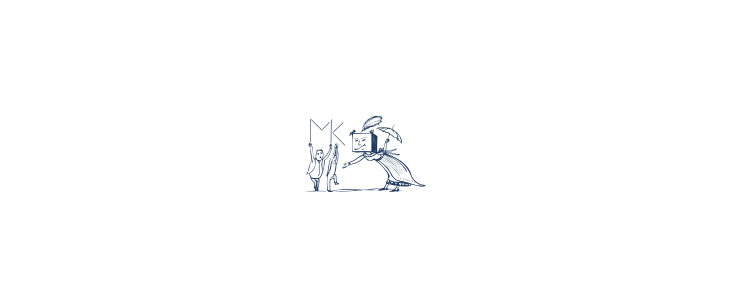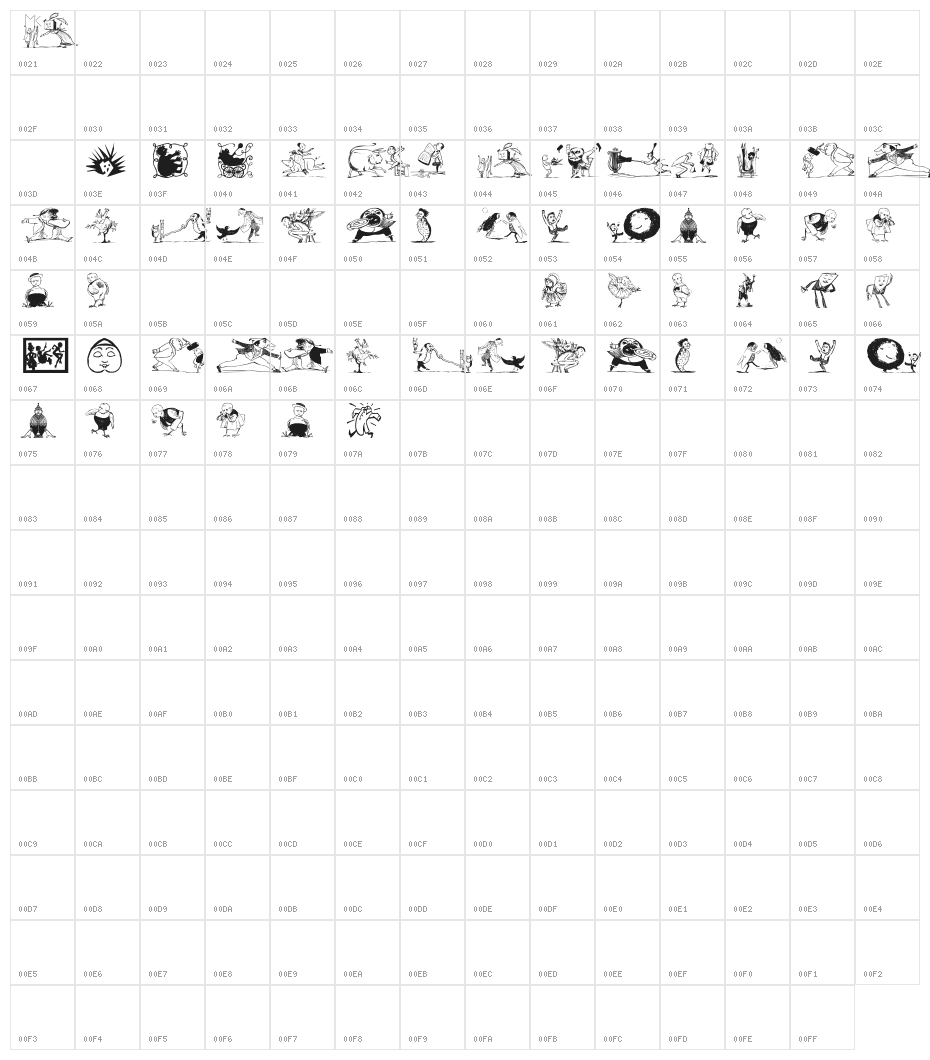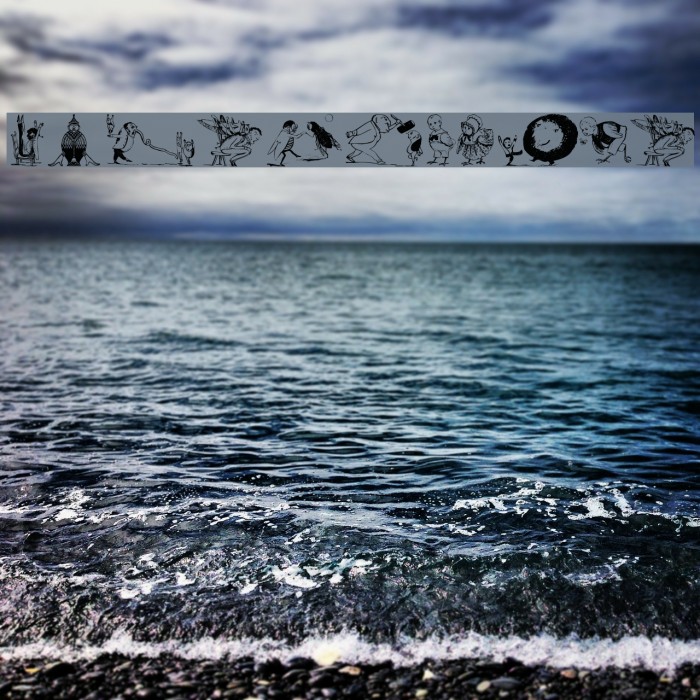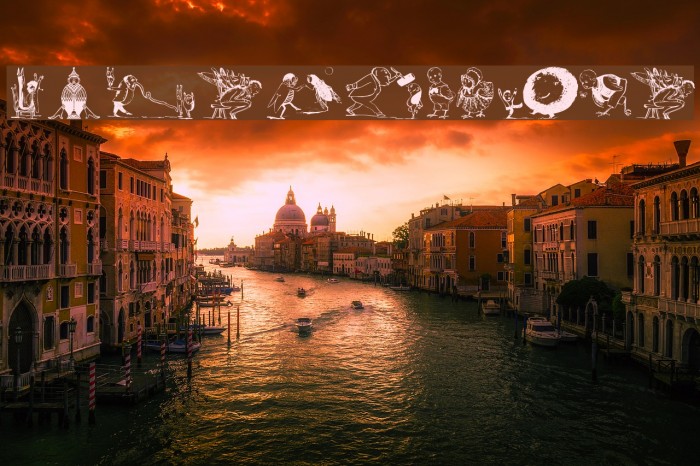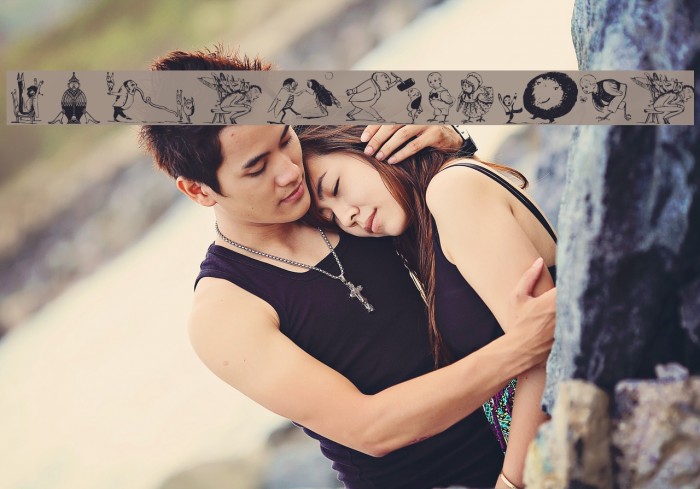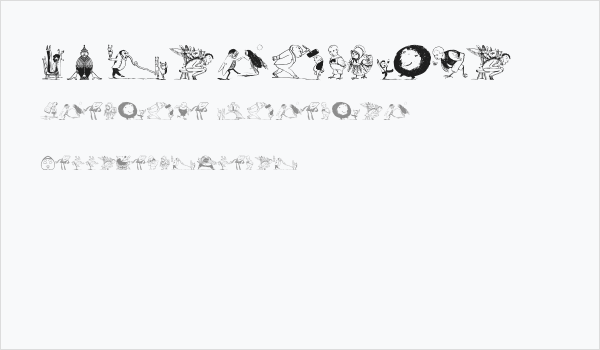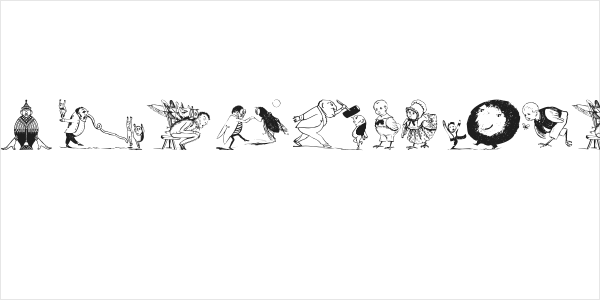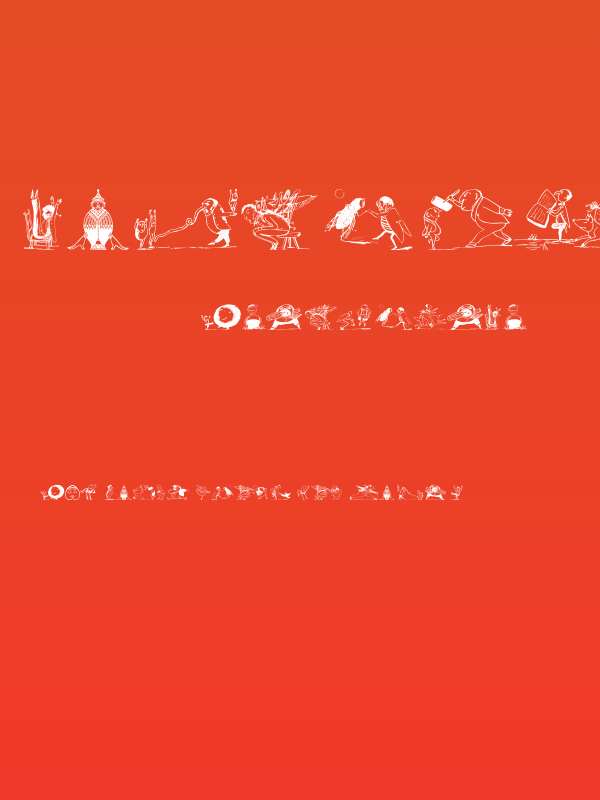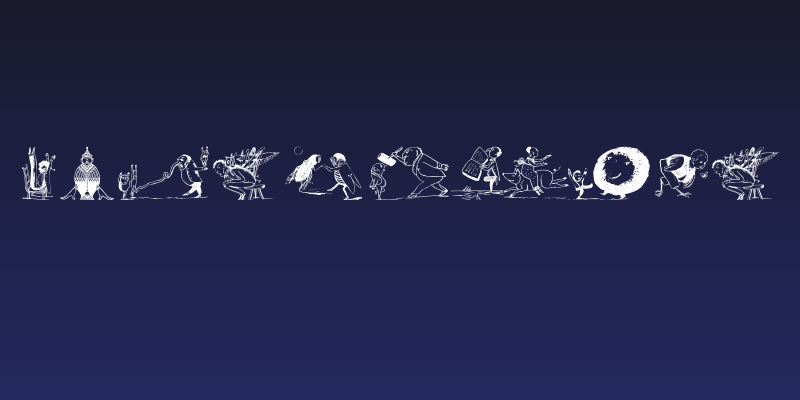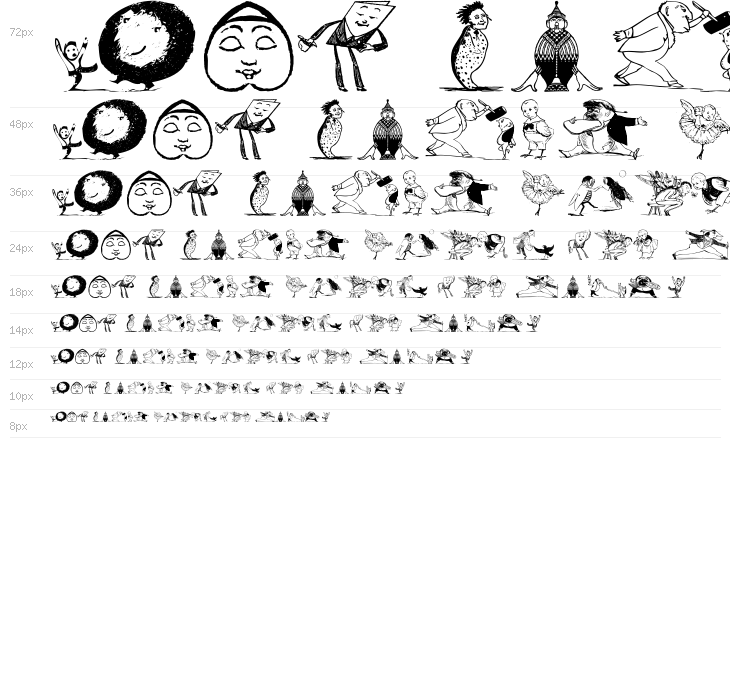
HumoricaTwo Font
HumoricaTwo Description
This font is a whimsical and playful collection of illustrated characters, each representing a letter or symbol. The characters are depicted in humorous and exaggerated poses, adding a lighthearted and fun element to any design. The illustrations are detailed and expressive, capturing a sense of movement and personality. This font is perfect for projects that require a touch of humor and creativity, making it ideal for children's books, playful branding, or any design that aims to entertain and engage the audience.
| Overall Style | Humorous, Playful, Creative |
| Use Case | Logos, Headlines, Decorative elements |
| Proposed Projects | Children's books, playful branding, greeting cards, comic strips, and creative posters. |